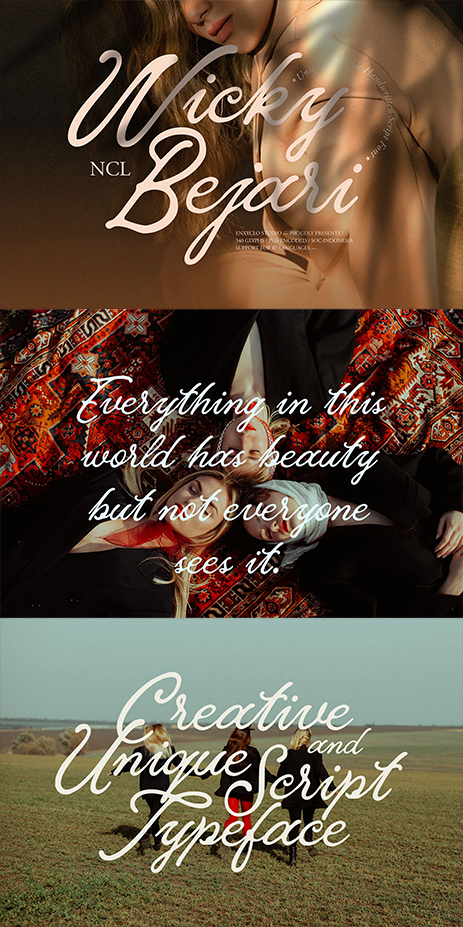
NCL Wicky Bejari Font
About NCL Wicky Bejari
NCL WICKY BEJARI is a unique ink style handwritten script font. It’s stylish and modern-classic display font inspired by pop cultures and urban culture. Masterfully designed to become a true favorite, this font has the potential to bring each of your creative ideas to the highest level! It was purposely crafted to be used in large point sizes, although it doesn’t lose its magic in small point sizes. It is perfect for headline, billboard, magazines, website, titles, poster, branding, t-shirt design, and logos. No matter the topic, this font will be an incredible asset to your fonts’ library, as it has the potential to elevate any creation. With this beautiful font, absolutely you can make your project stand out from the rest.
- Contains 340 Glyphs
- Uppercase, Lowercase & Numeral
- Punctuation, Symbol & Currencies